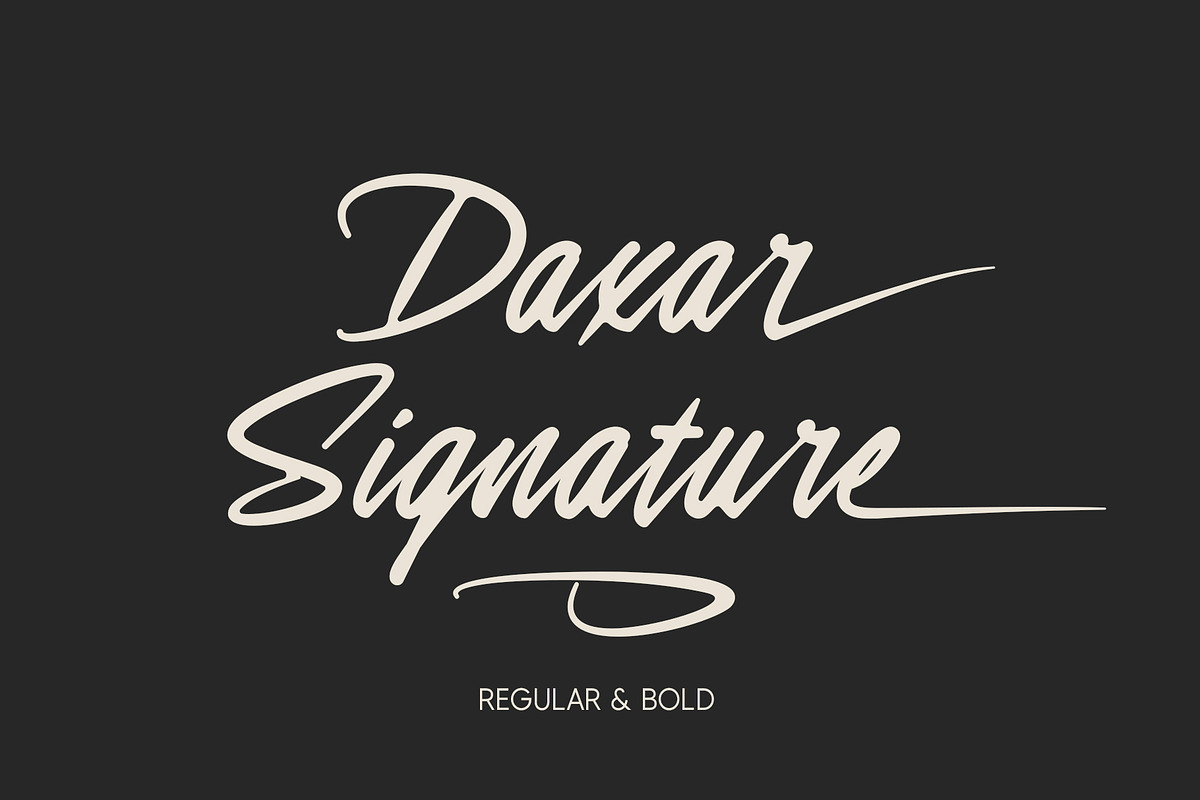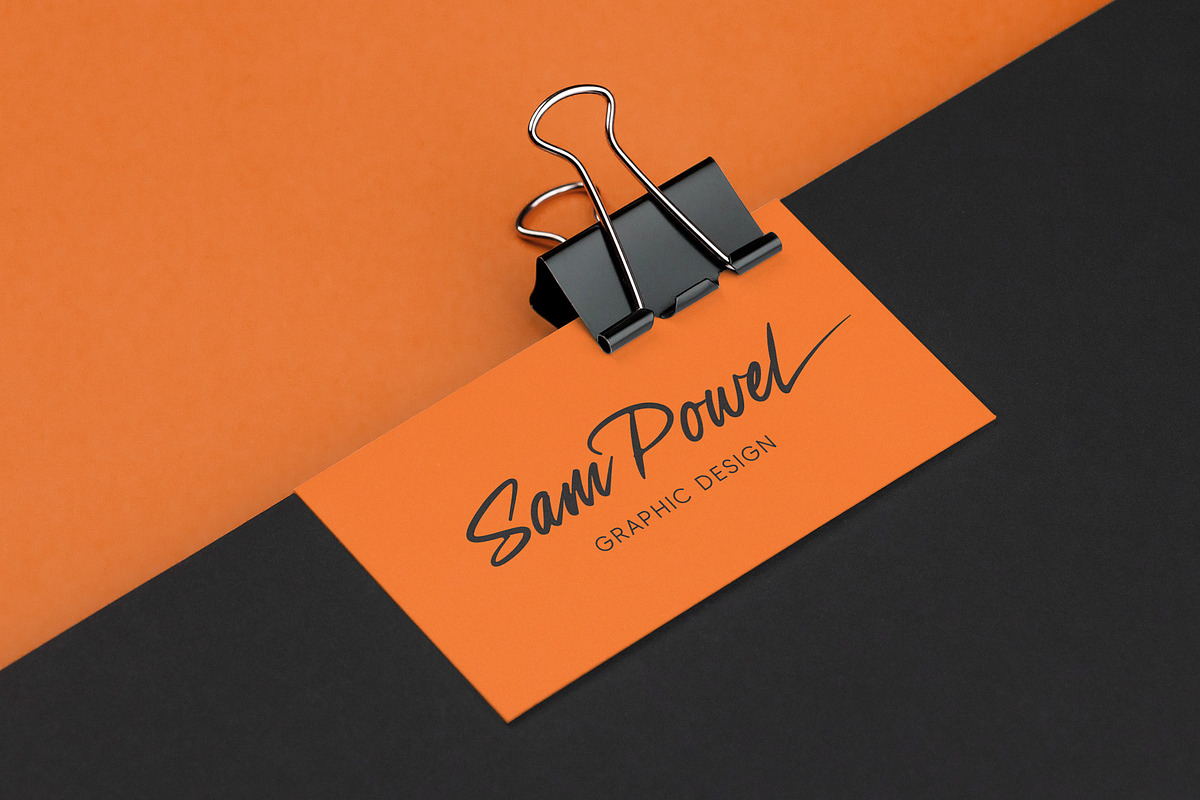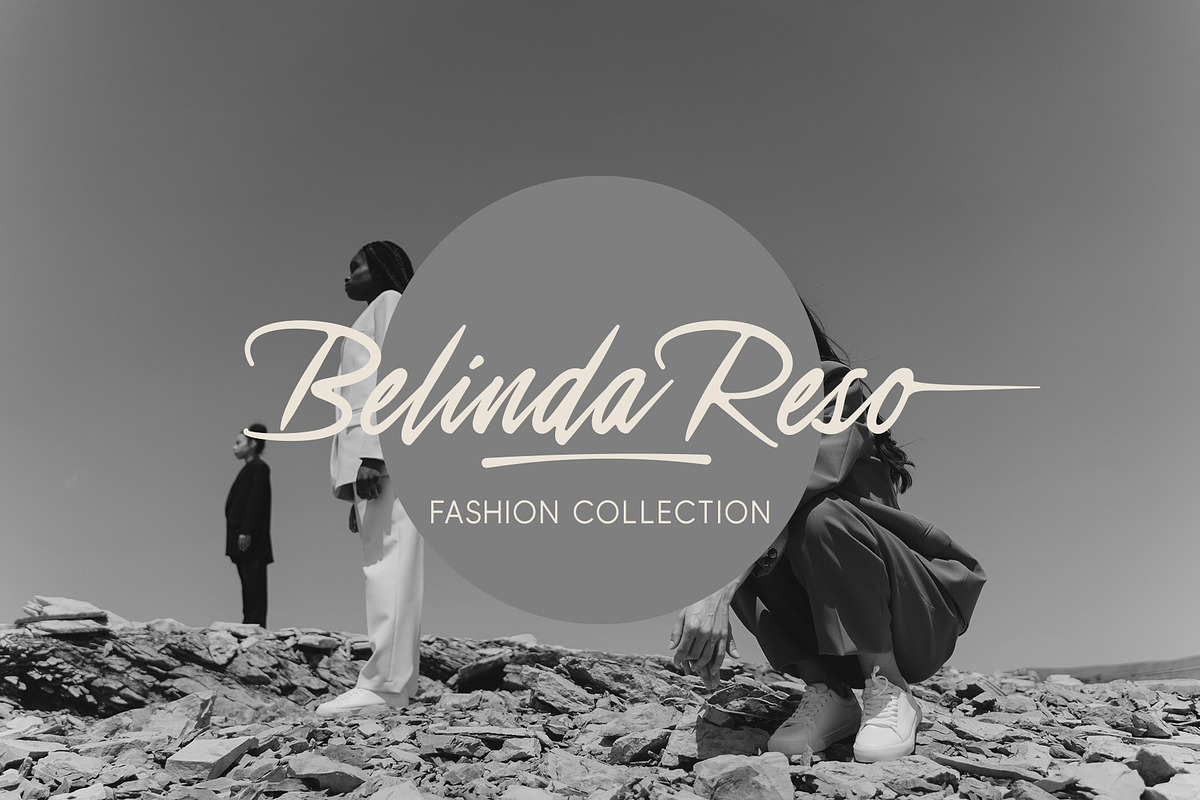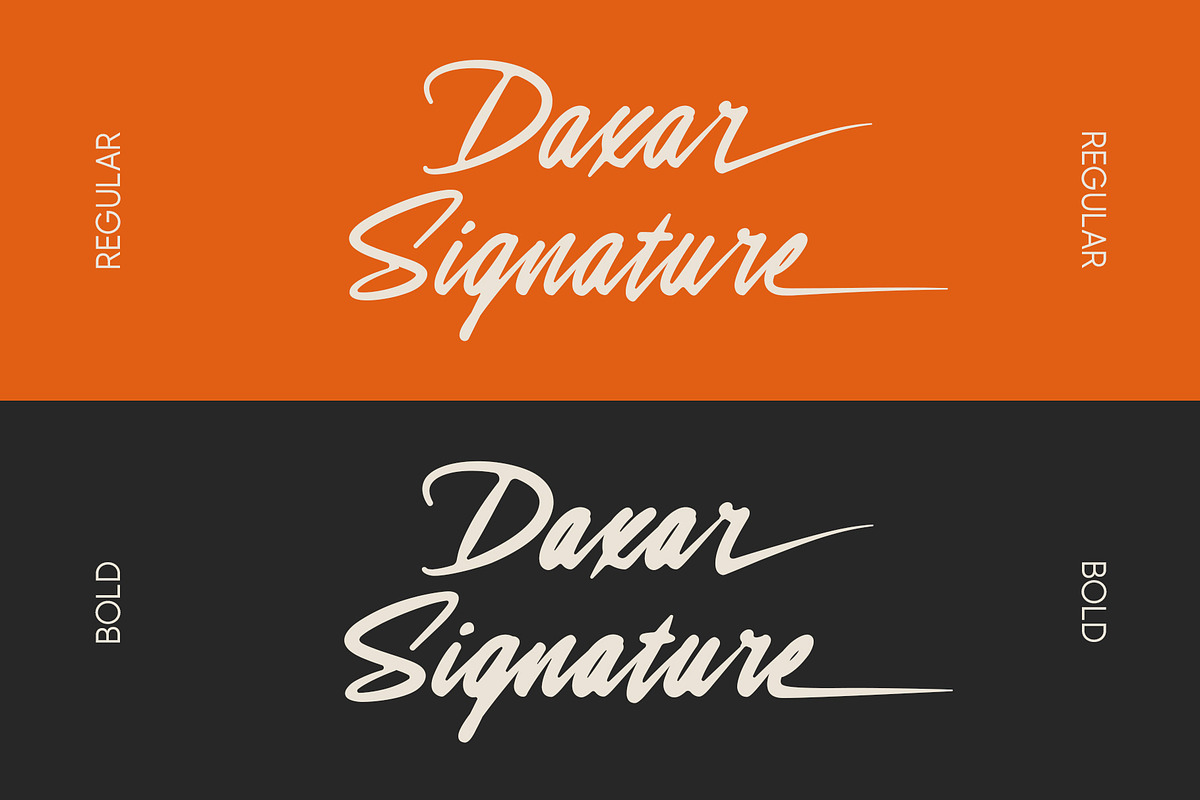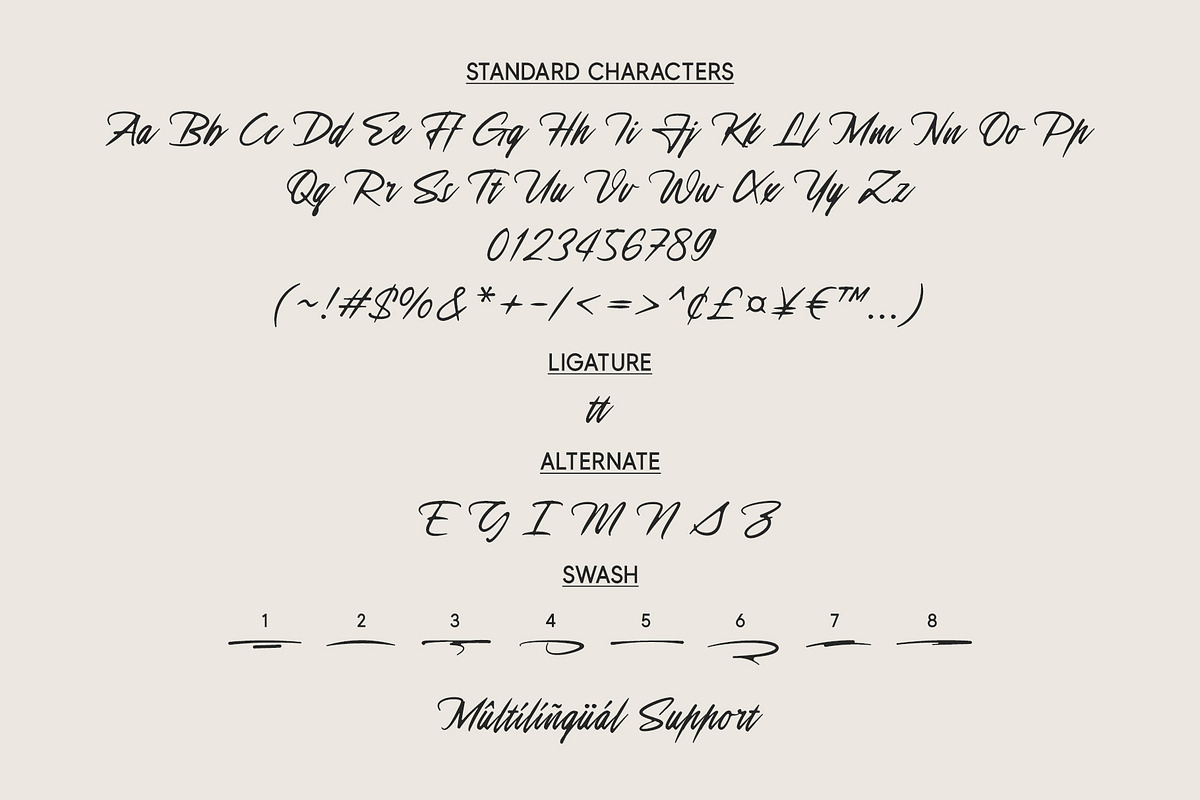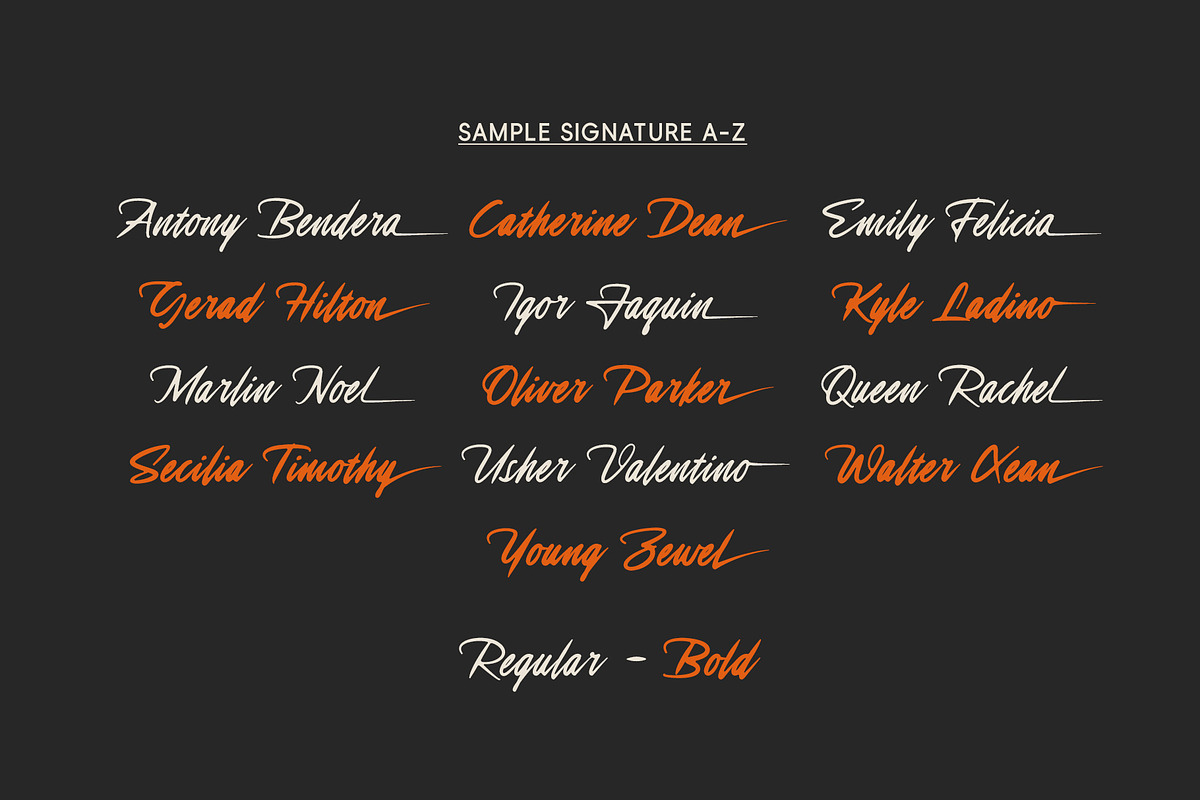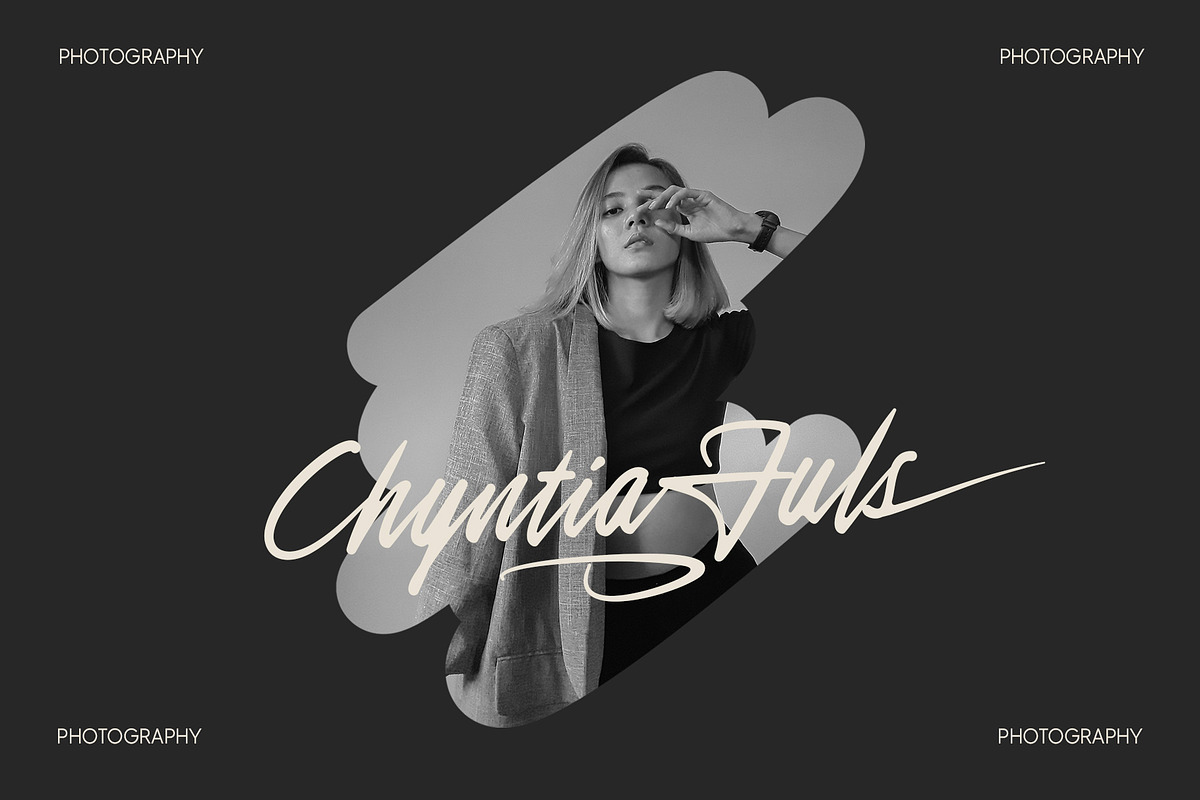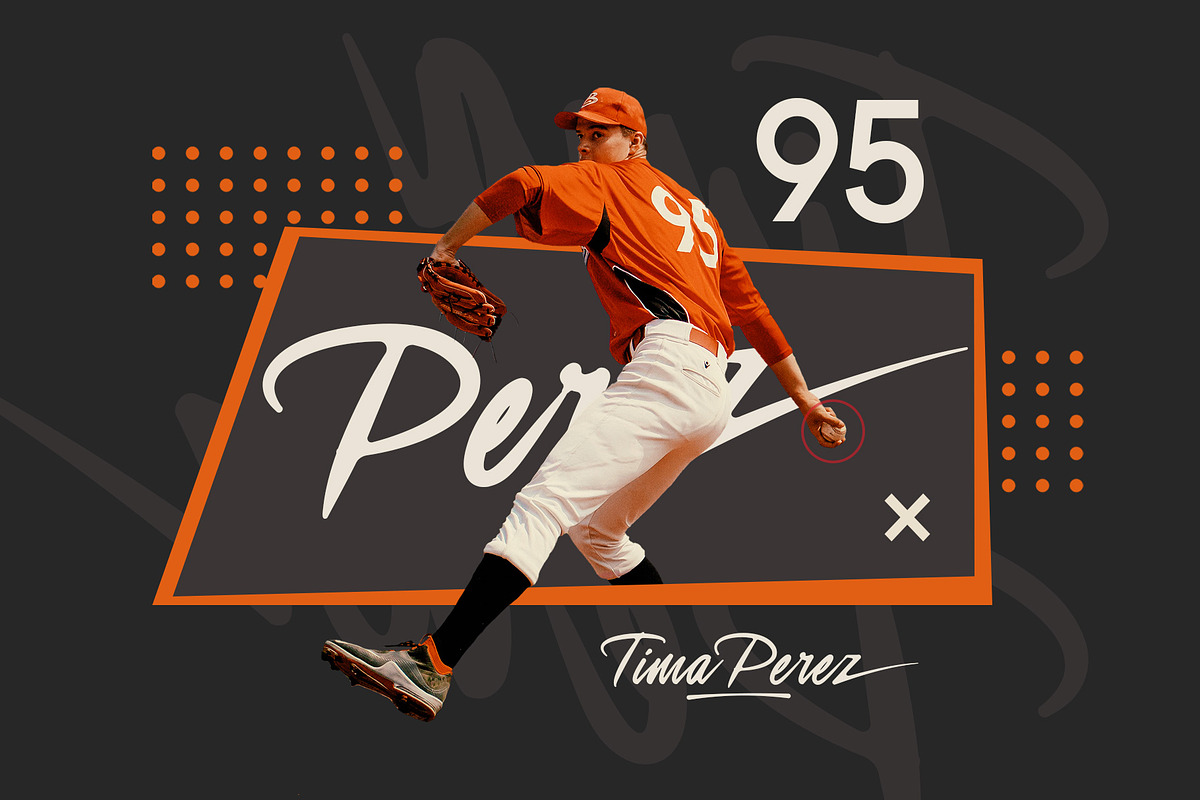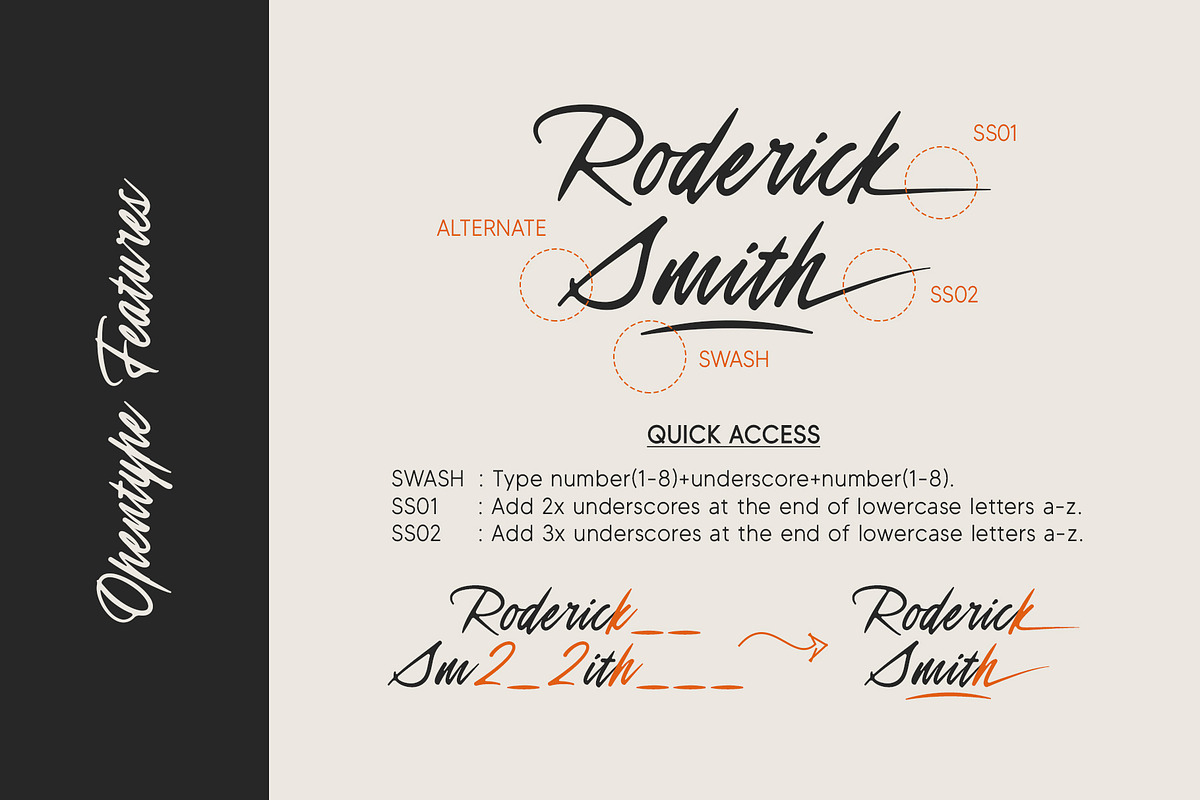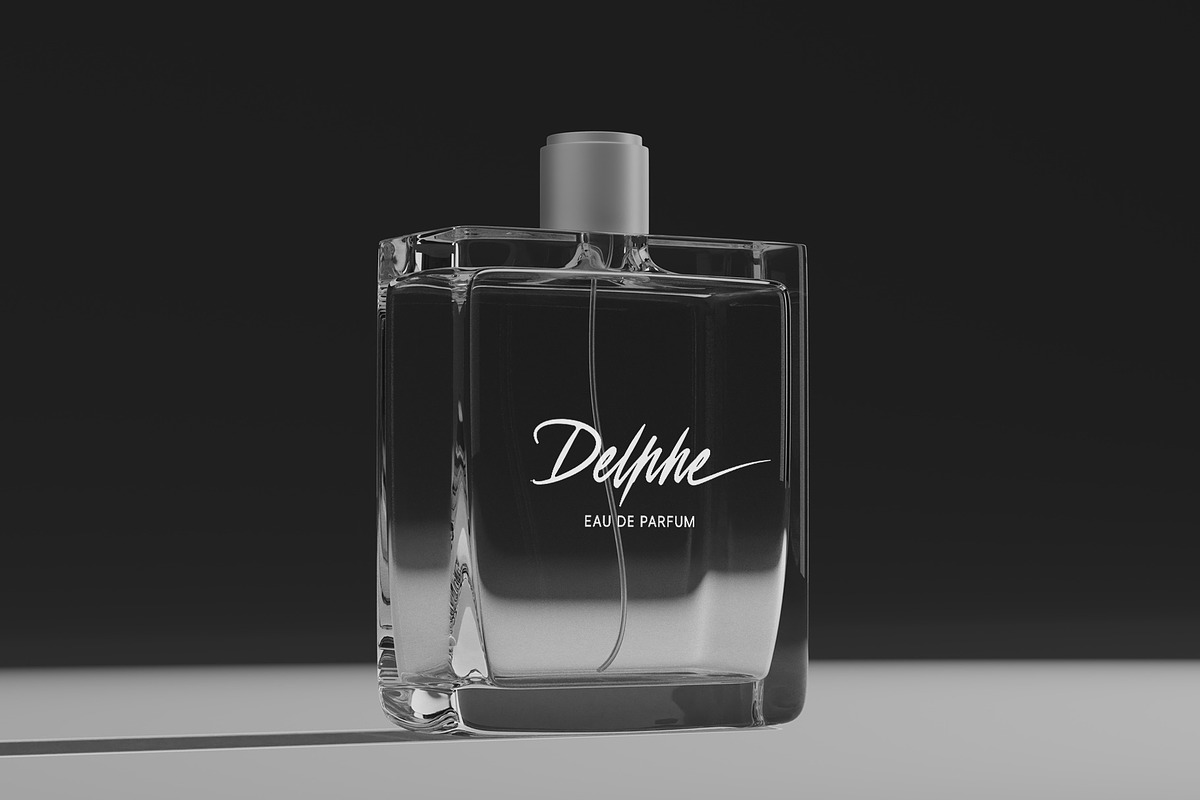
Daxar | Signature Script
Daxar Signature is a signature script font with two style variants: Regular and Bold. Offering flexibility in expressing your message with clarity and firmness. Each letter is designed with precision to give an elegant yet bold impression. Suitable for various projects such as logos, branding, business cards, signatures, posters, labels, titles, and more.
- Regular & Bold
- Stylistic Set
- SS01: Add 2x underscores at the end of lowercase letters a-z. Example: a__
- SS02: Add 3x underscores at the end of lowercase letters a-z. Example: a___
- Swash: Add number (1–8) + underscore + number (1–8) Example: 1_1, 2_2, 3_3, 4_4, 5_5, 6_6, 7_7, 8_8